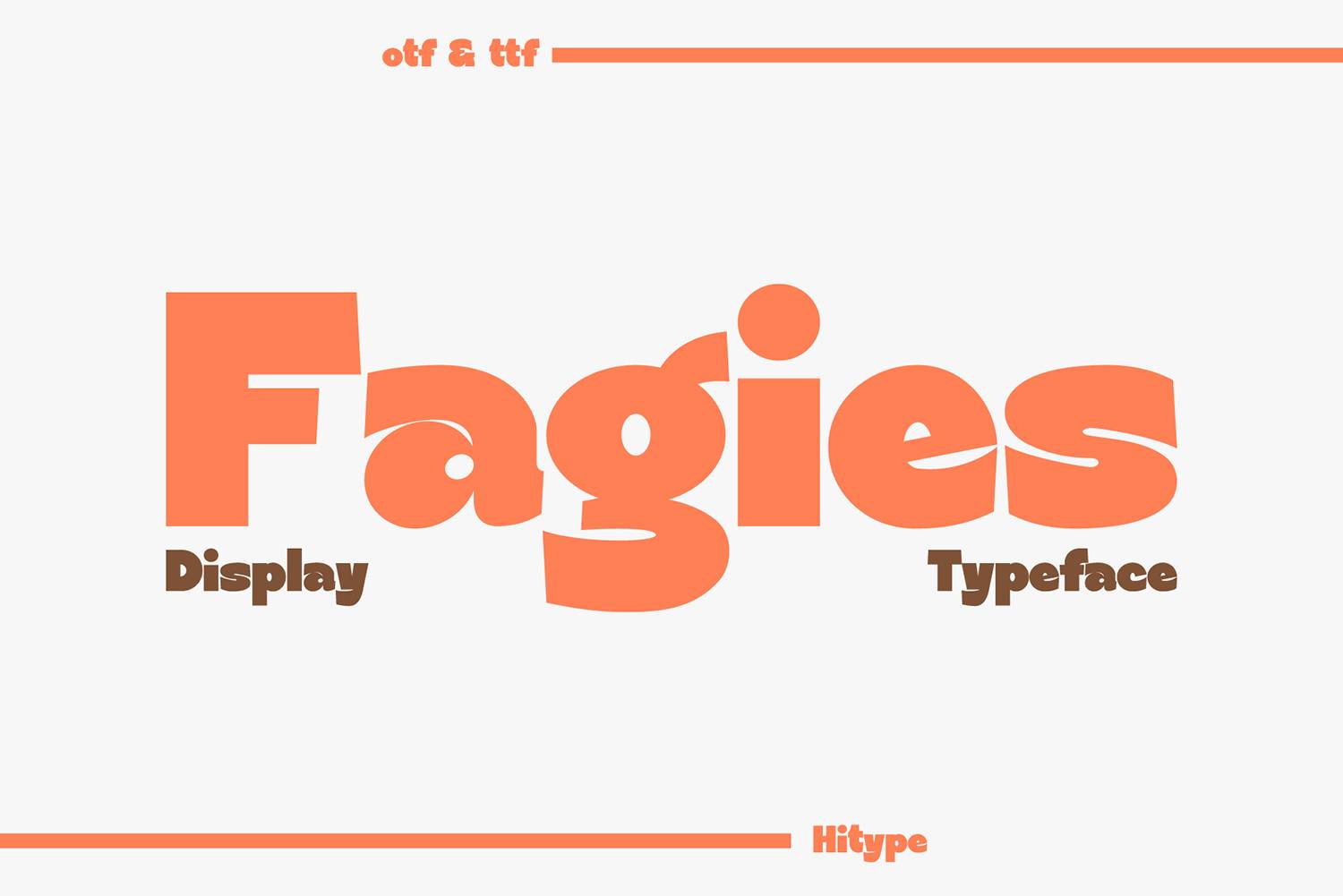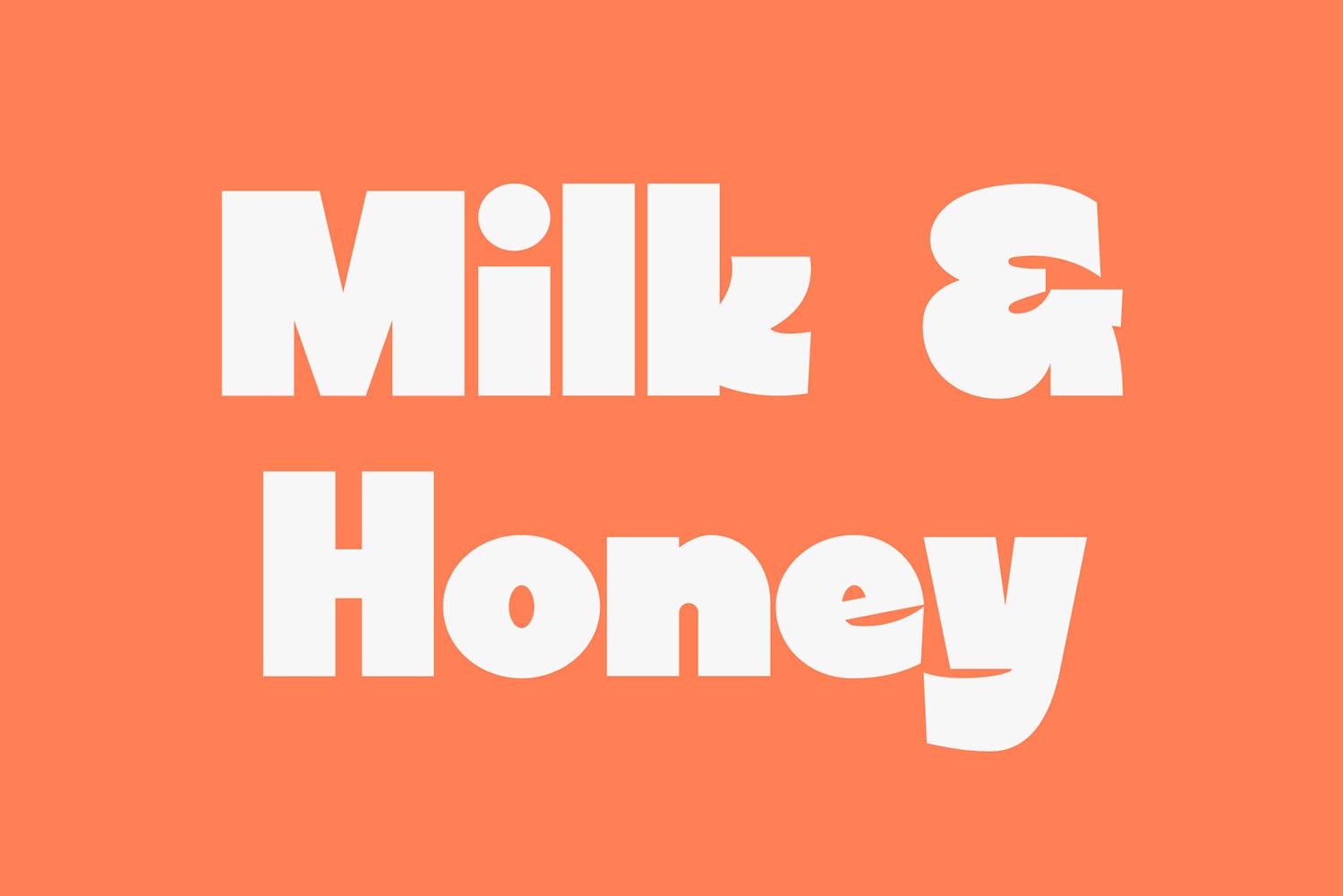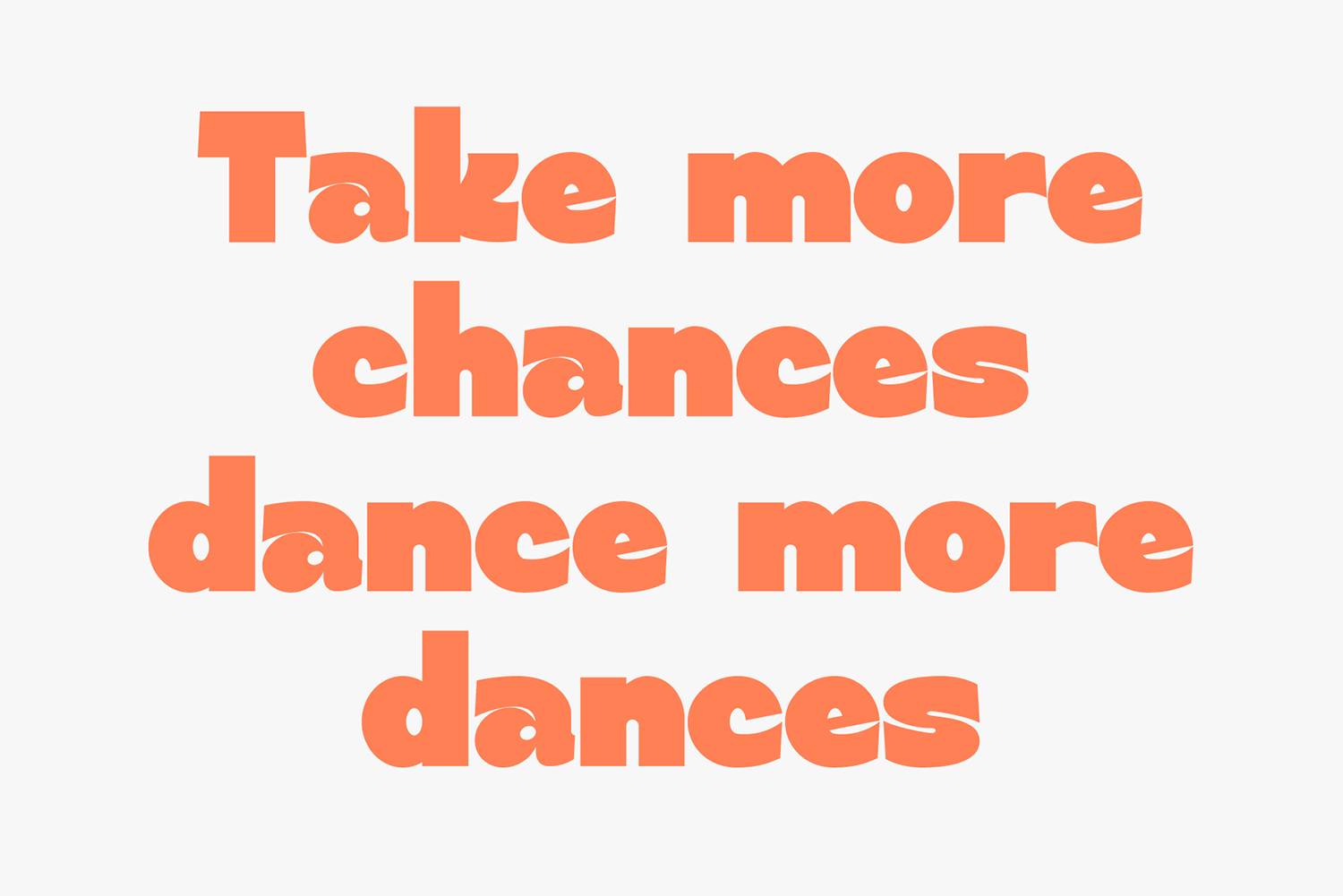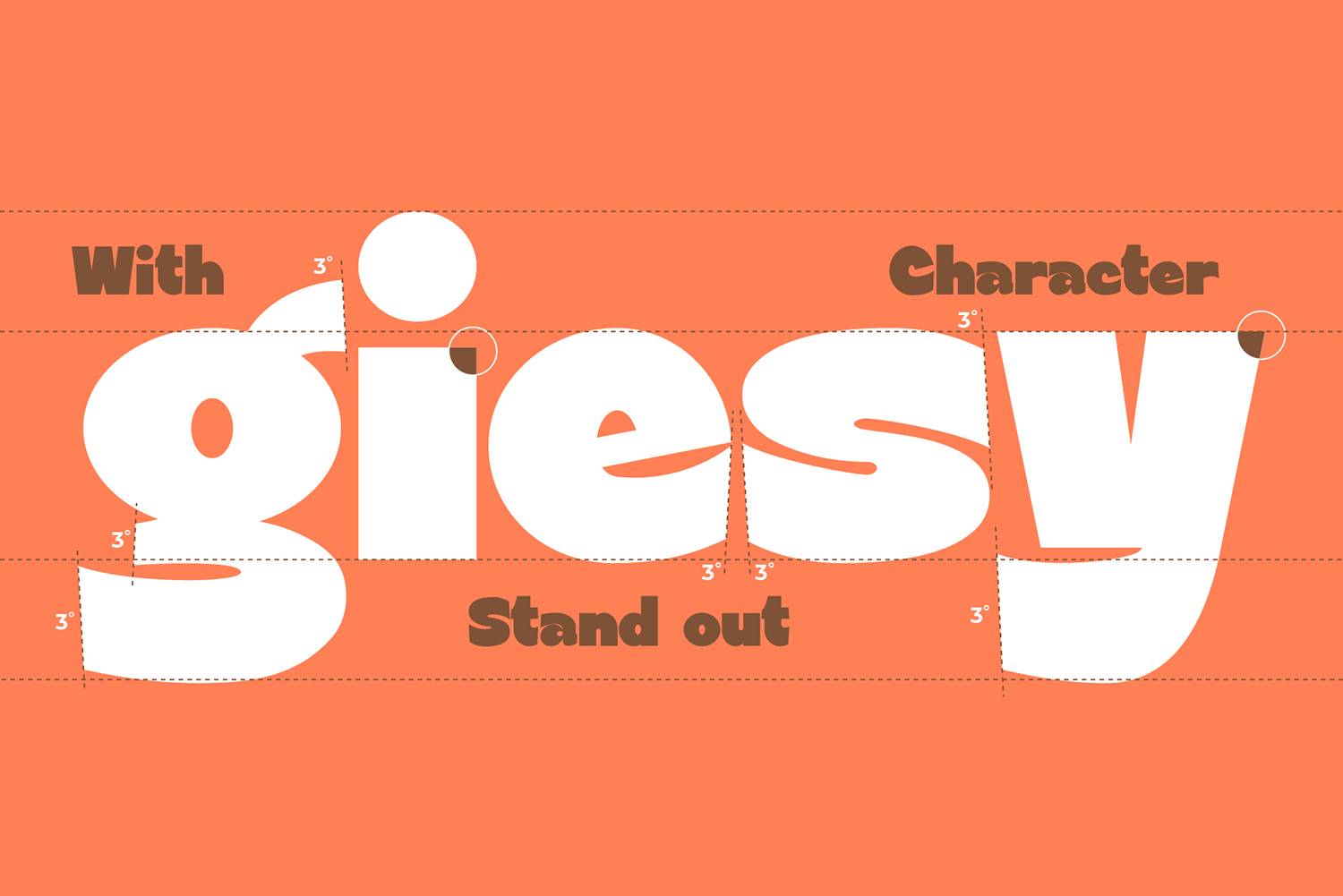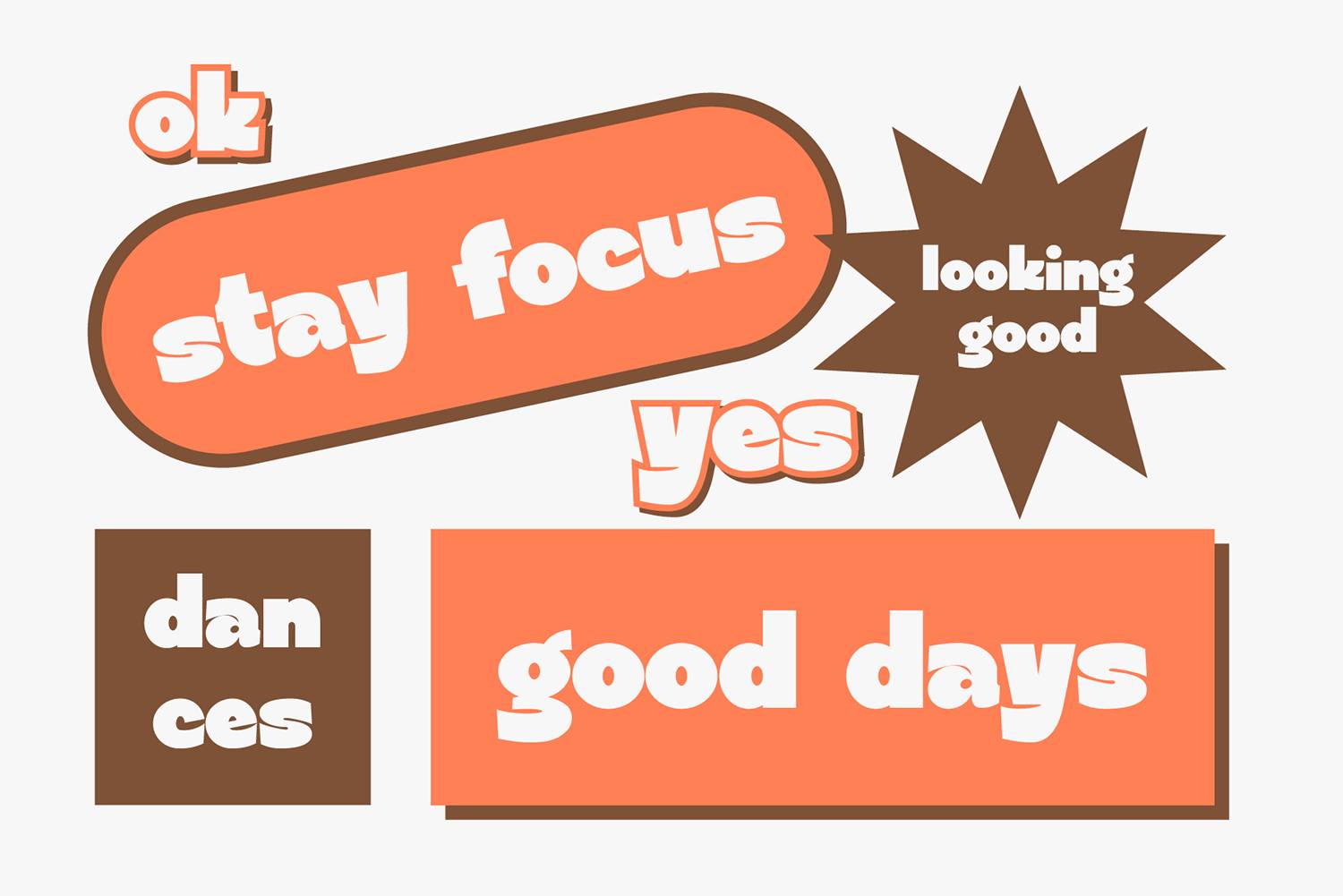
Fagies is a bold, playful sans serif font with a sturdy, compact feel and rounded letterforms that give it a friendly yet strong personality. Its heavy weight and generous x-height make it highly legible and eye-catching, perfect for headlines, logos, and branding that aim to convey fun and confidence. This font works well for creative, youthful projects where a bold statement is needed.
Fagies Font
About Fagies Font